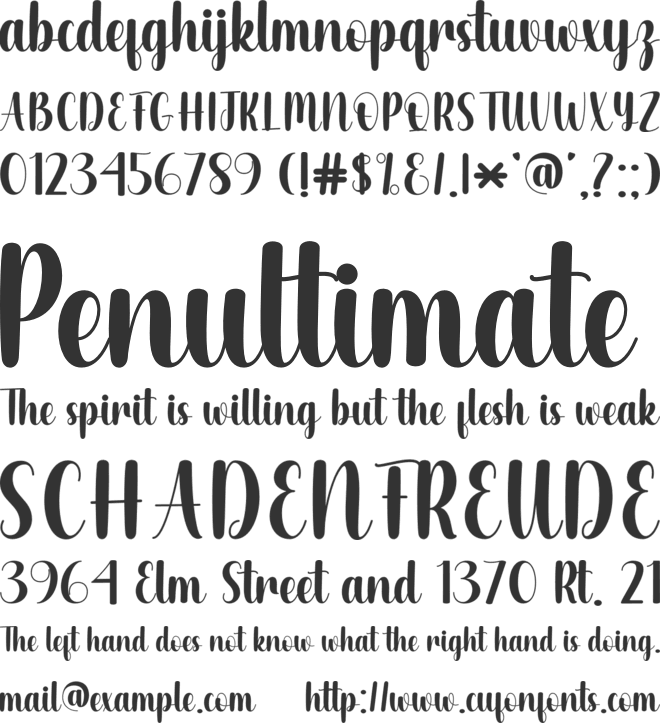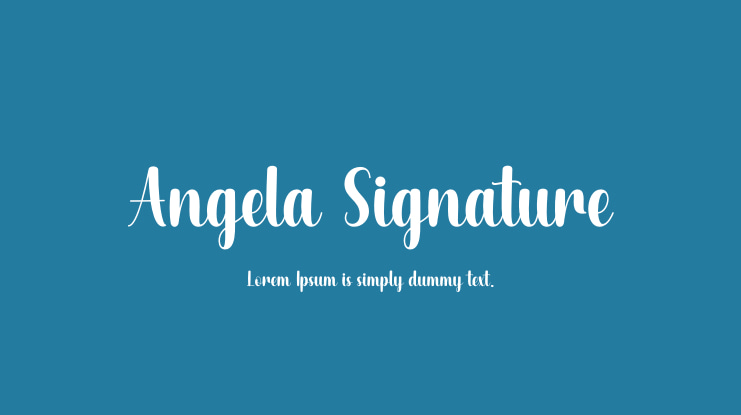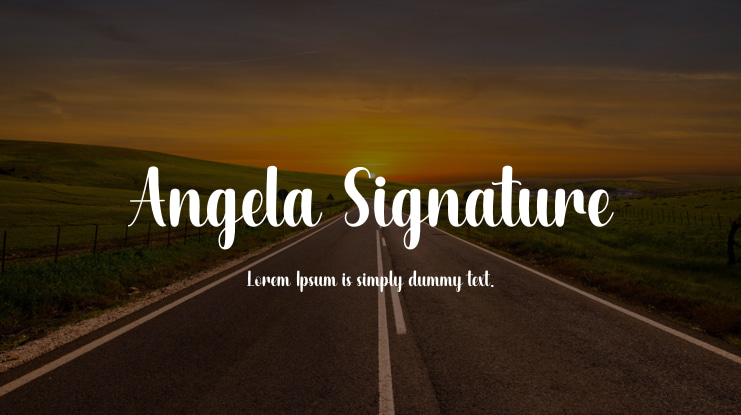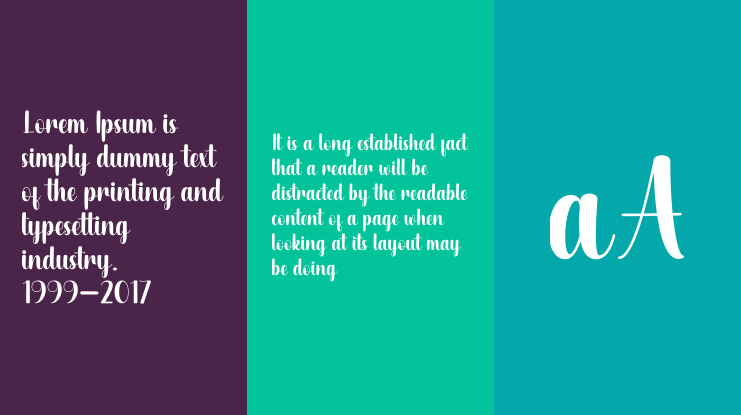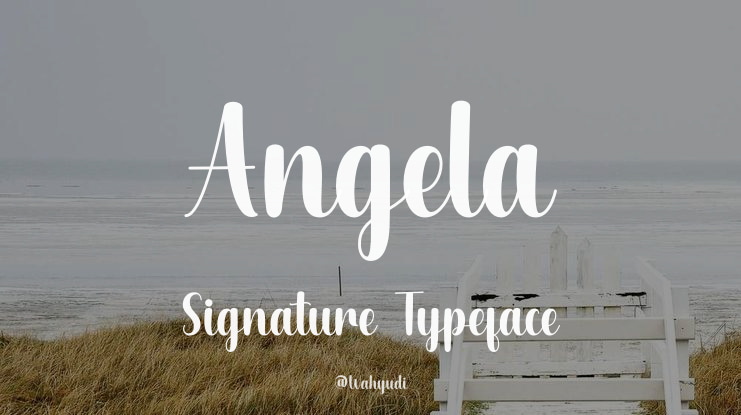
Angela Signature Font
Wahyudi
Angela Signature is a trendy handwritten font with a contemporary vibe and impeccable form, inspired by timeless classic calligraphy. It will add elegance and class to any of your design projects.